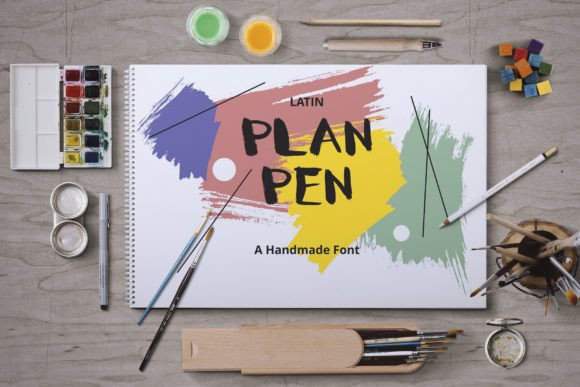
Introducing Plan Pen Font - A Whimsical & Quirky Display Font Made for Latin!
Prepare to be delighted by Plan Pen Font, a vibrant and playful display font that radiates joy and personality. Crafted by the talented Malena, this brush font is simply irresistible with its enchanting charm. Each letter dances across the page with a unique flair, adding a touch of magic to your designs.
Unlock Endless Creative Possibilities:
Unleash your imagination and open up a world of creative possibilities with Plan Pen Font. Let its whimsical style add a spark to your social media posts, elevate your branding, and create eye-catching headlines that demand attention. With Plan Pen Font, your designs will stand out, captivating your audience and leaving a lasting impression.
Make Your Designs Shine:
Say goodbye to dull and ordinary fonts! Plan Pen Font is your secret weapon to transform your designs into vibrant masterpieces. Its unique characteristics make it perfect for a variety of projects, from cheerful invitations to playful posters and everything in between. Let Plan Pen Font infuse your designs with a touch of whimsy that will leave your audience smiling.
Simplicity at Its Finest:
Plan Pen Font embraces simplicity while making a bold statement. Its easy-to-read style ensures that your message will be clear and impactful. Whether you're creating digital content or printed materials, Plan Pen Font guarantees effortless readability, making it the perfect choice for any project that demands clarity and visual appeal.
Join the Creative Revolution:
Plan Pen Font is more than just a font; it's an invitation to join a creative revolution. Step into a world where imagination reigns supreme, and design takes on a life of its own. With Plan Pen Font as your creative companion, you'll discover a newfound passion for expressing yourself through visual storytelling.